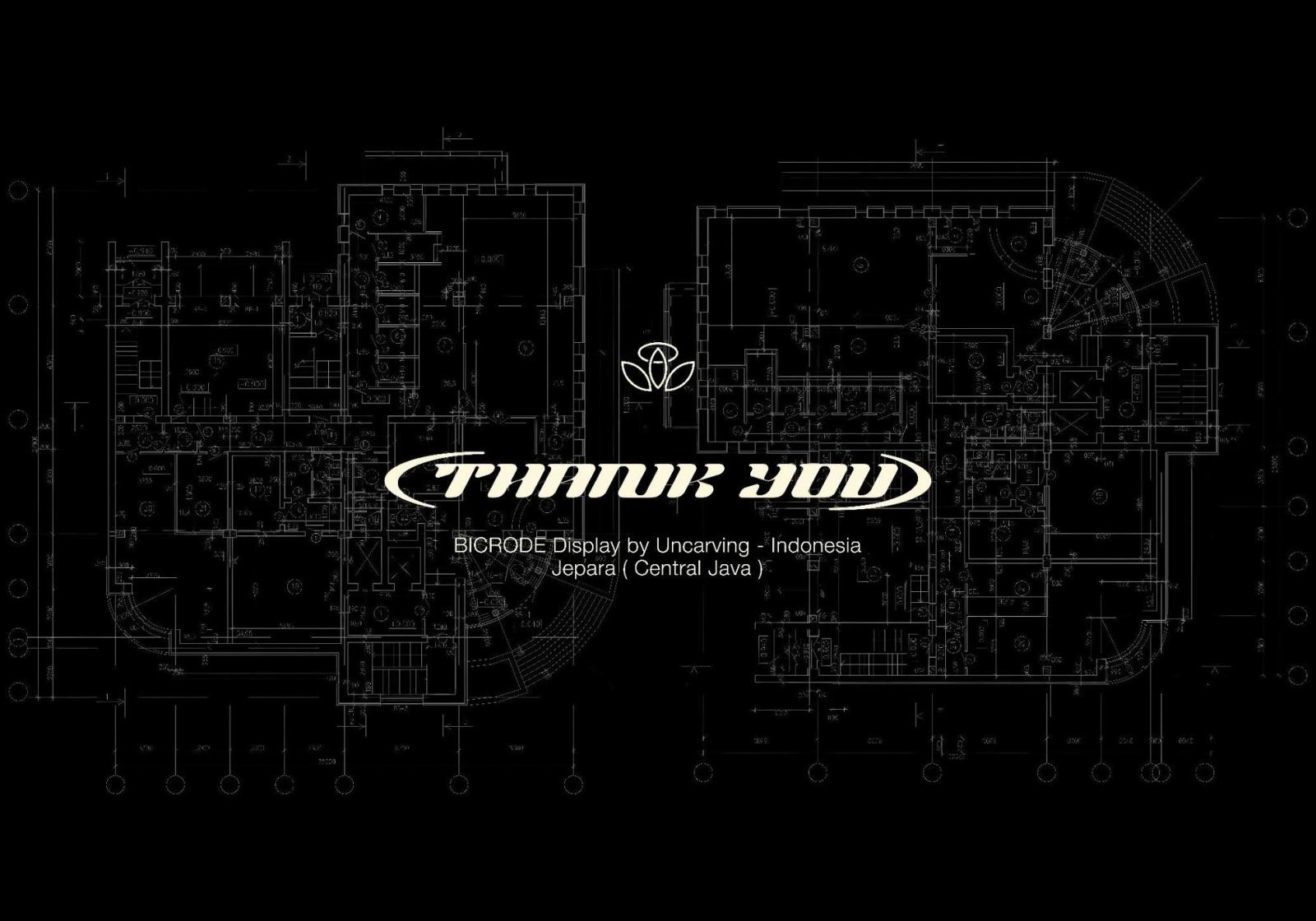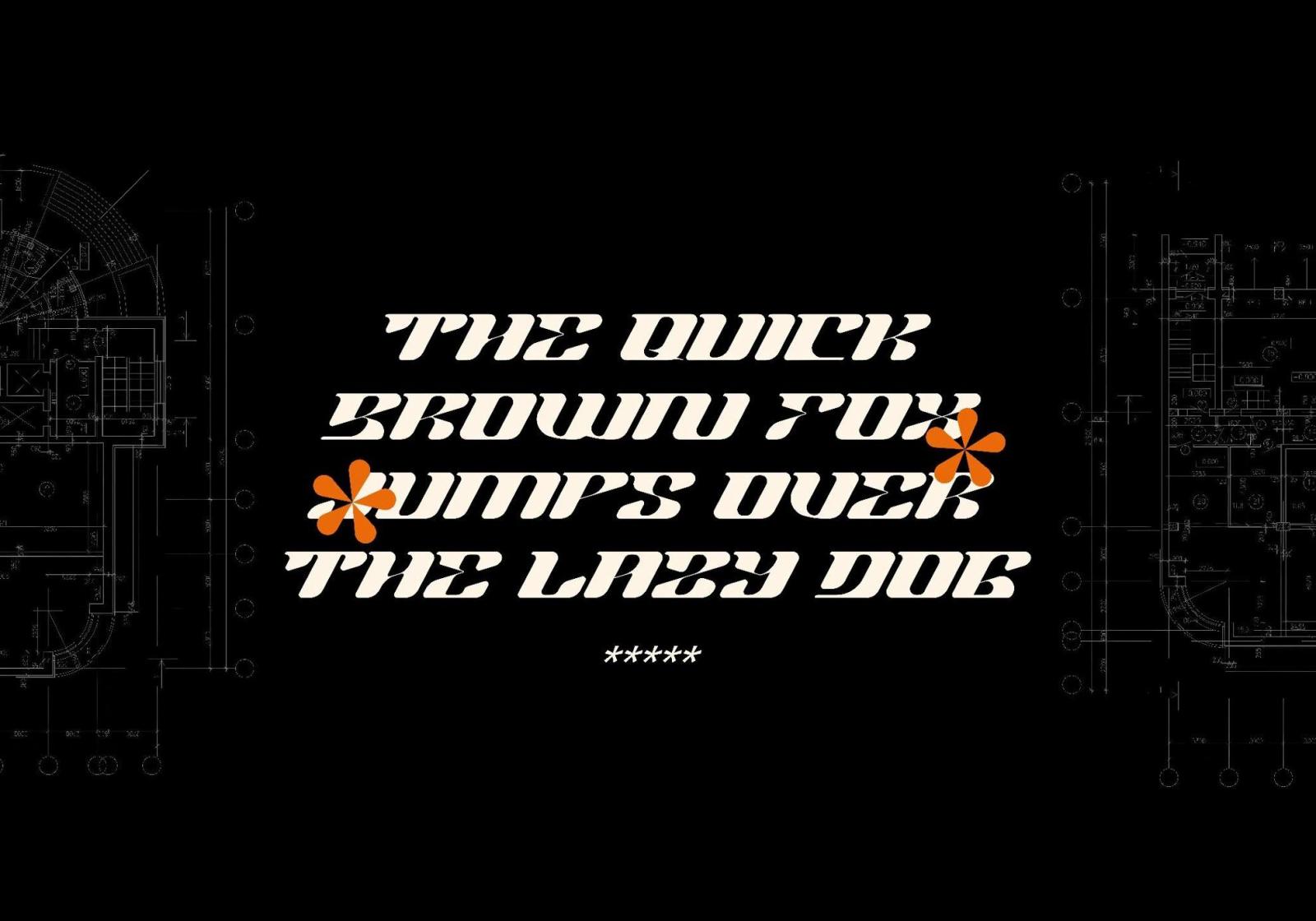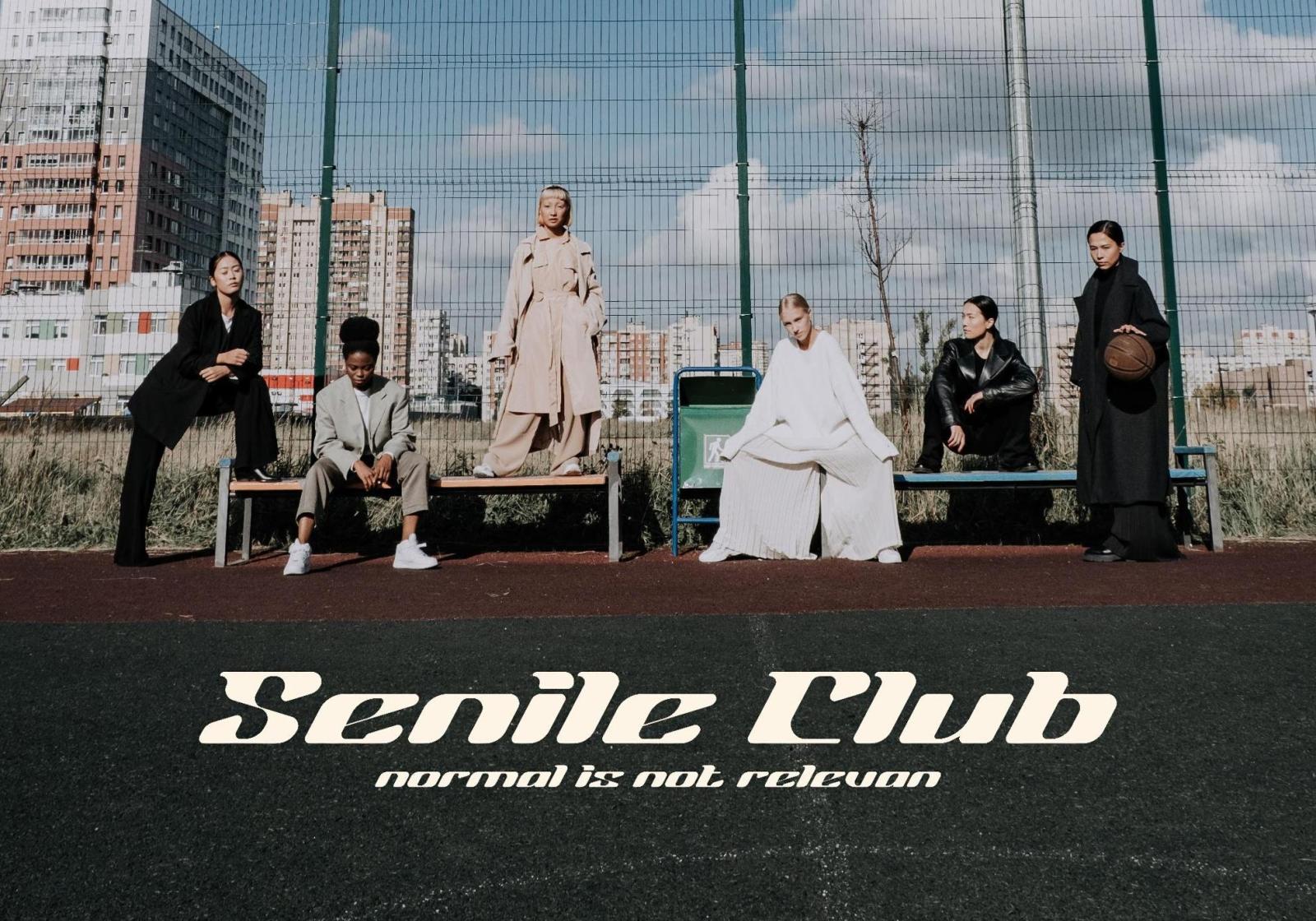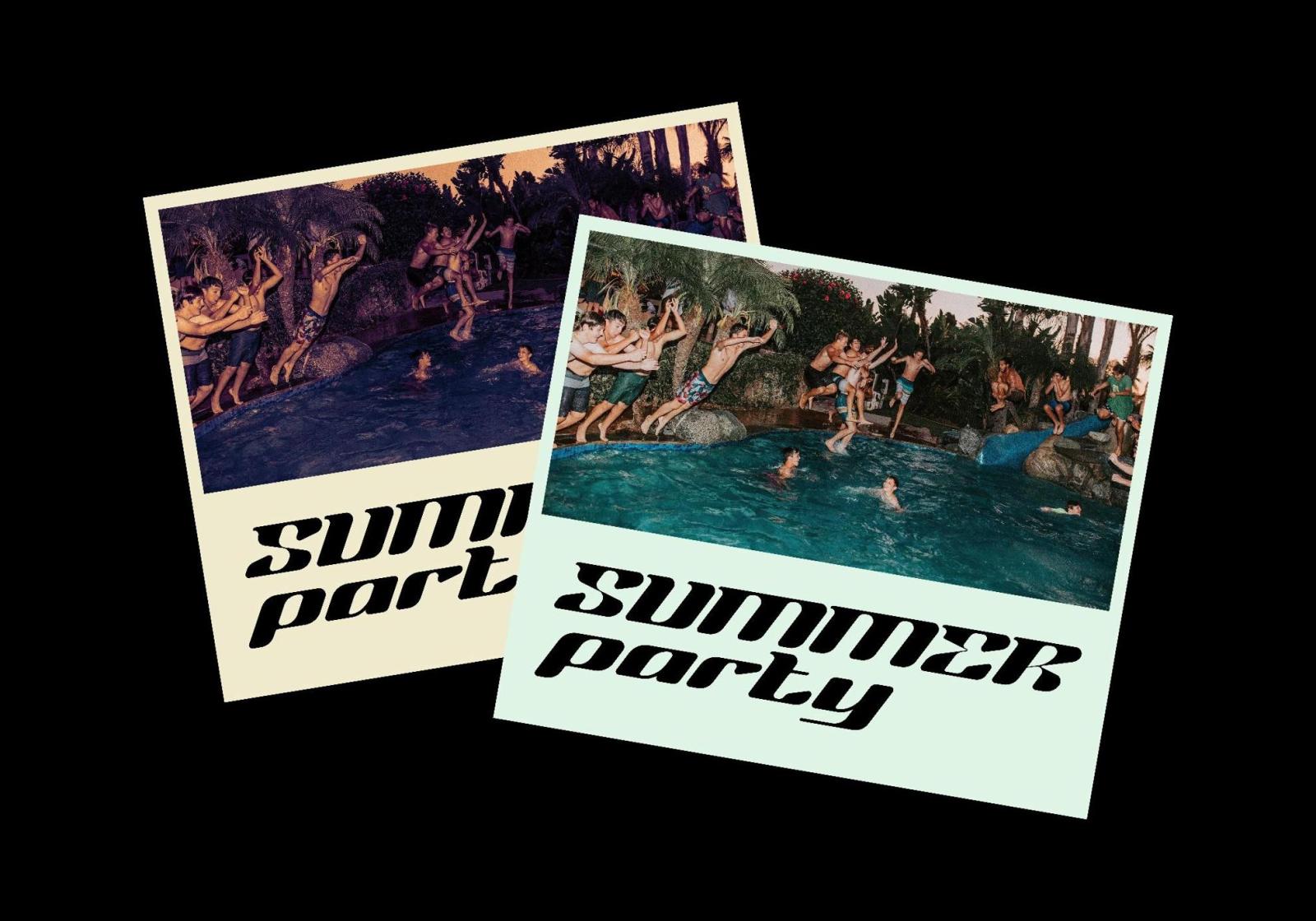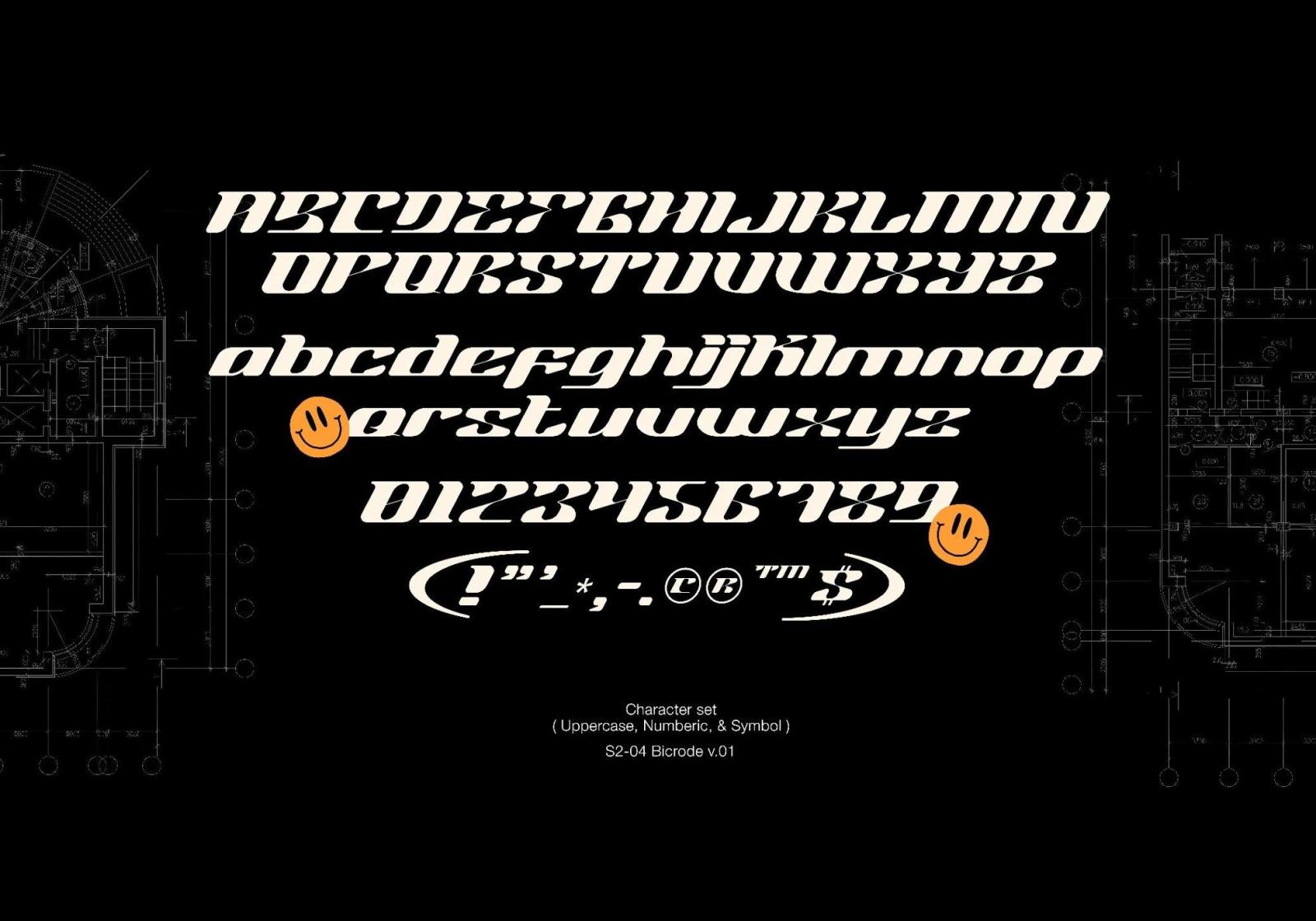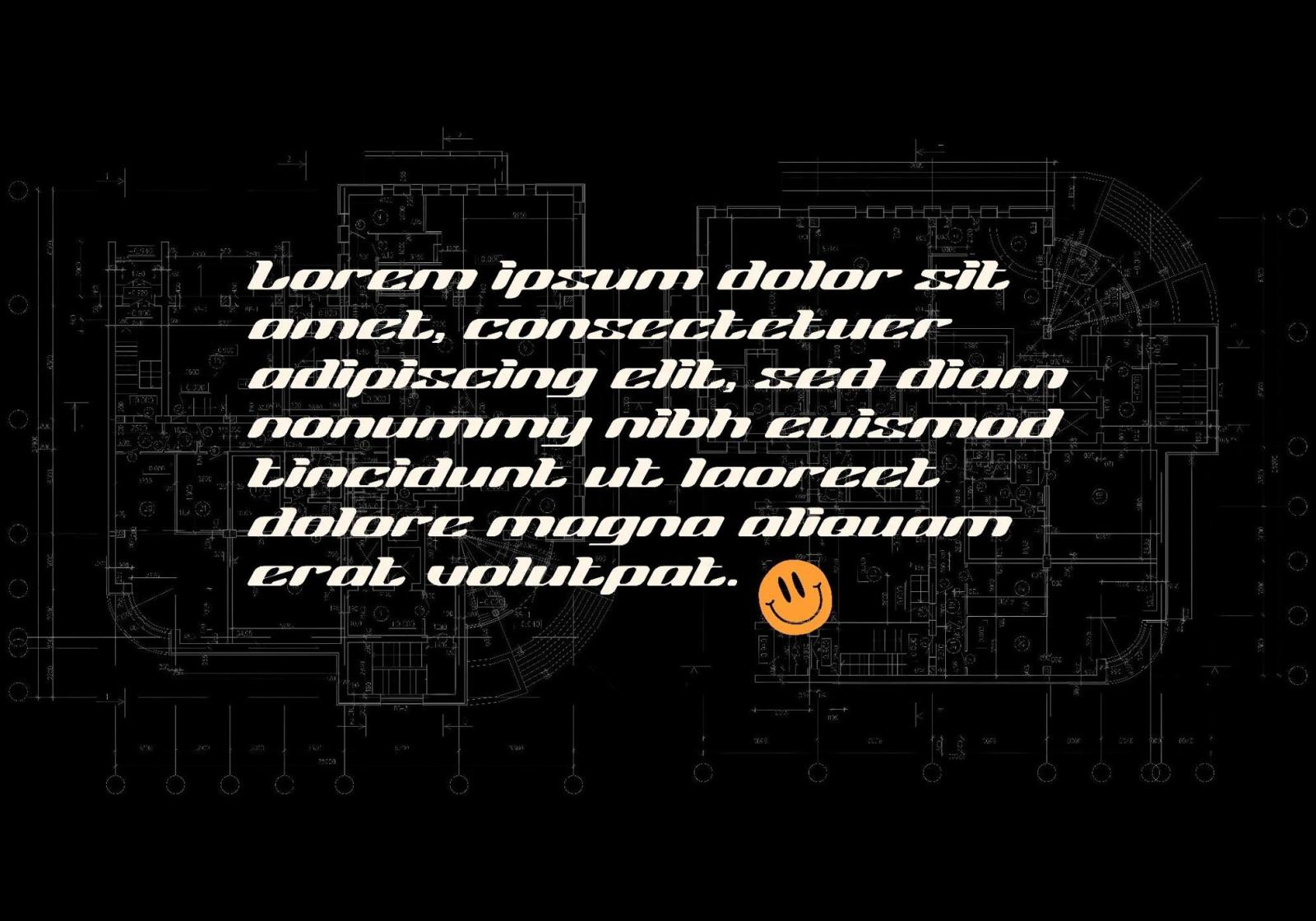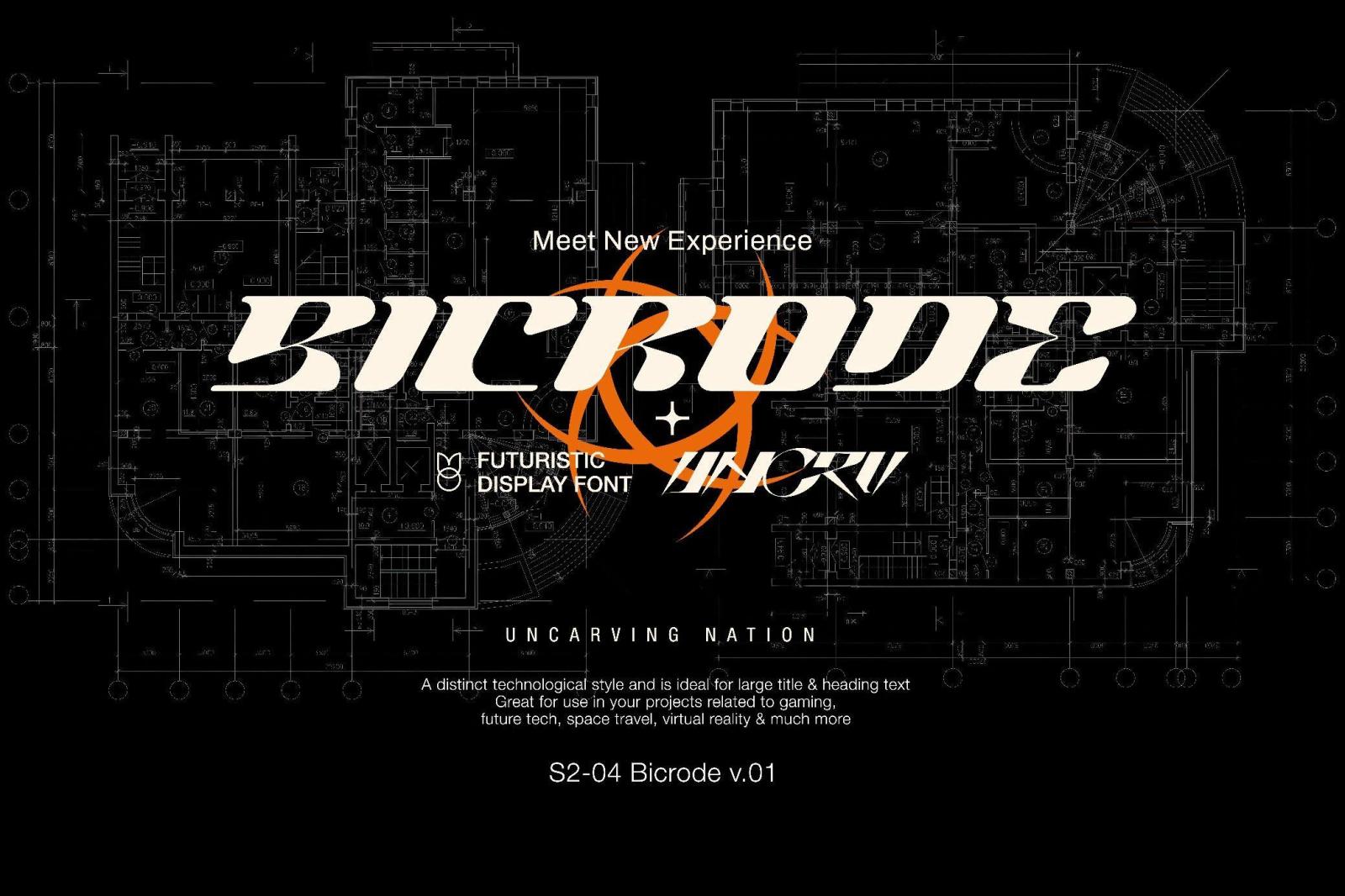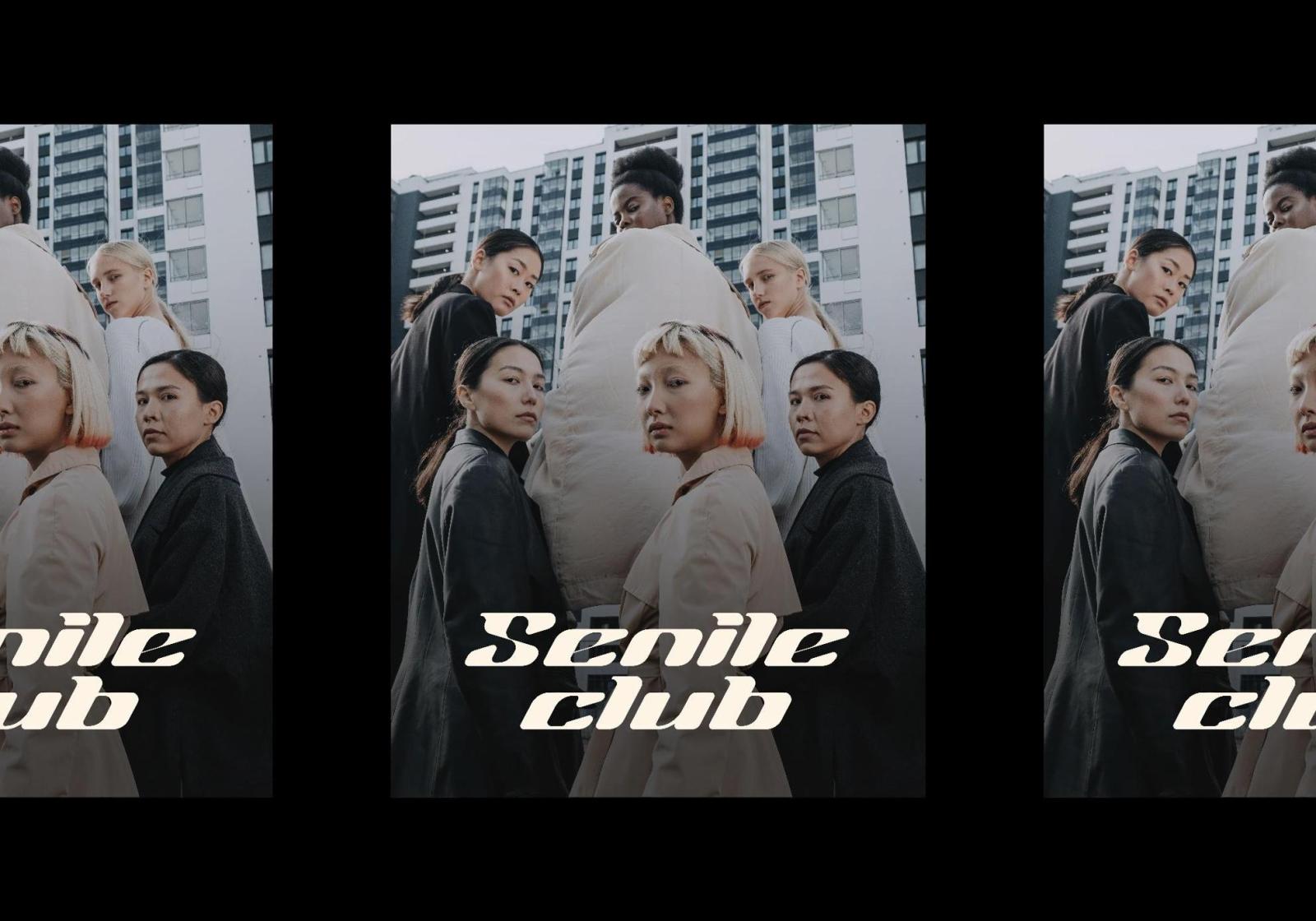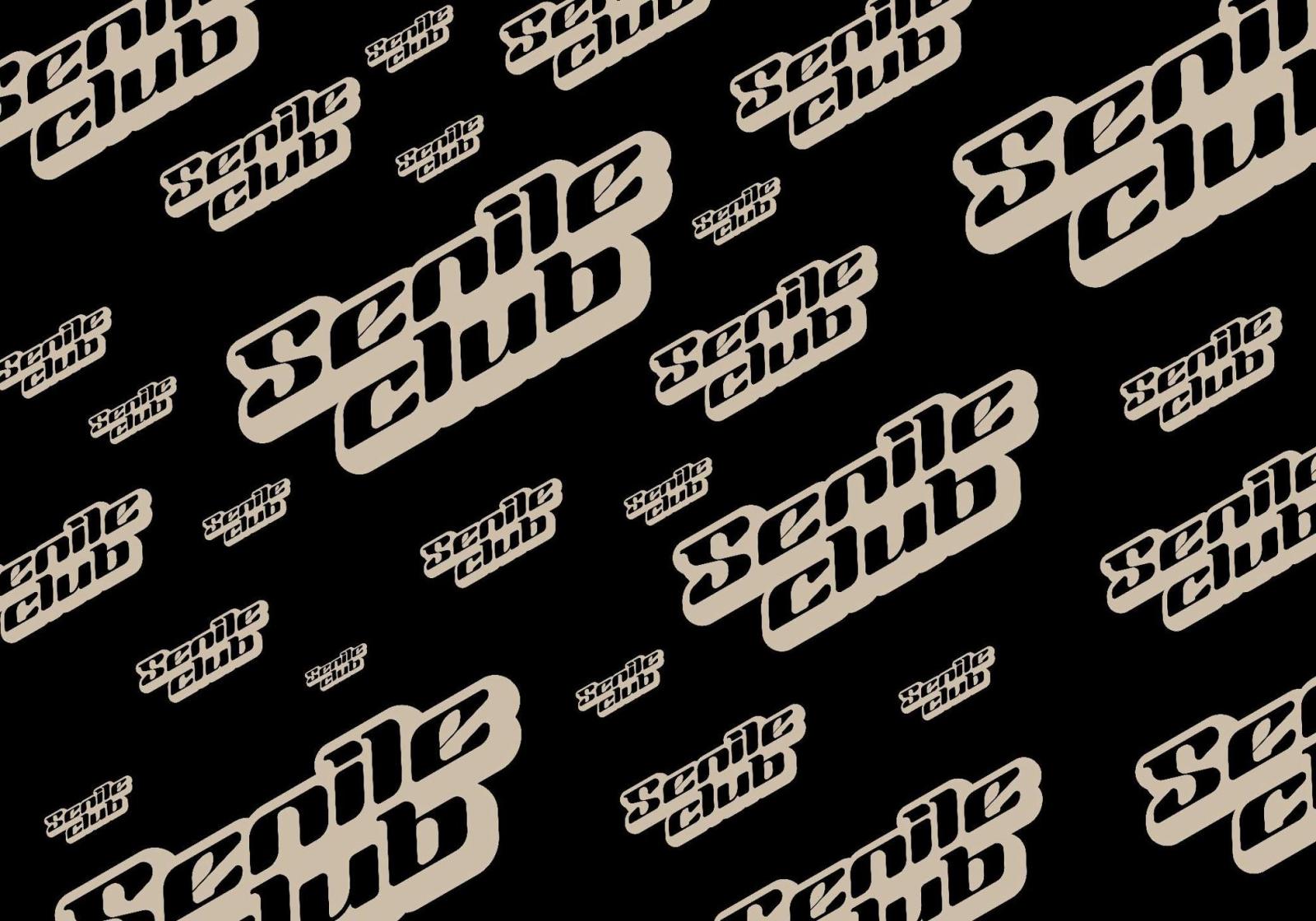
Bicrode Display Font
Forget everything you thought about typefaces merging retro with a futurist edge. Bicrode feels straight out of a Cannes-winning sci-fi flick — the kind with a brooding anti-hero, neon cityscapes, and at least one questionable existential monologue.
Mixing industrial grit with a retro appearance might sound like a design disaster waiting to happen, but this font pulls it off with a smug confidence that just works. Unorthodox? Sure. Complex? You bet. But boring? Not a chance. Defining its essence is tricky, but here's the lowdown: Bicrode's got a complete set, with uppercase, lowercase, numerals, and punctuation, ready to add some serious cool to any project bold enough to handle it.